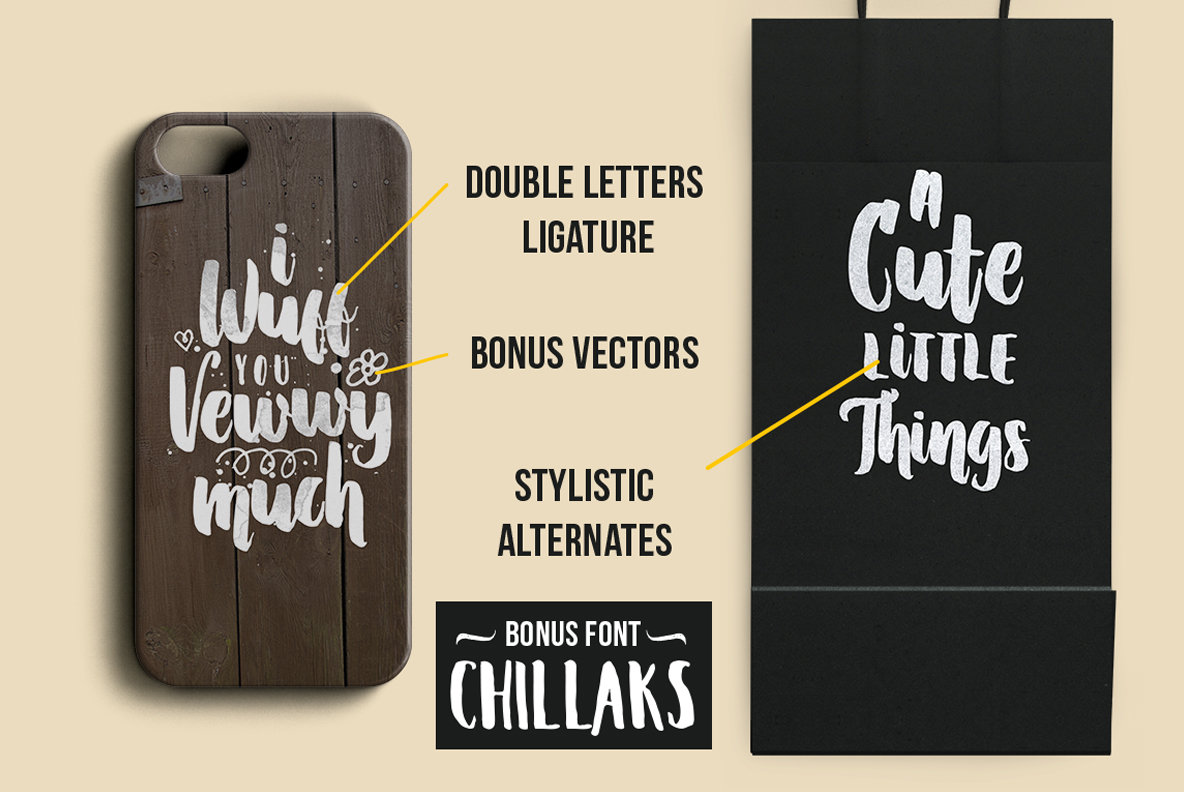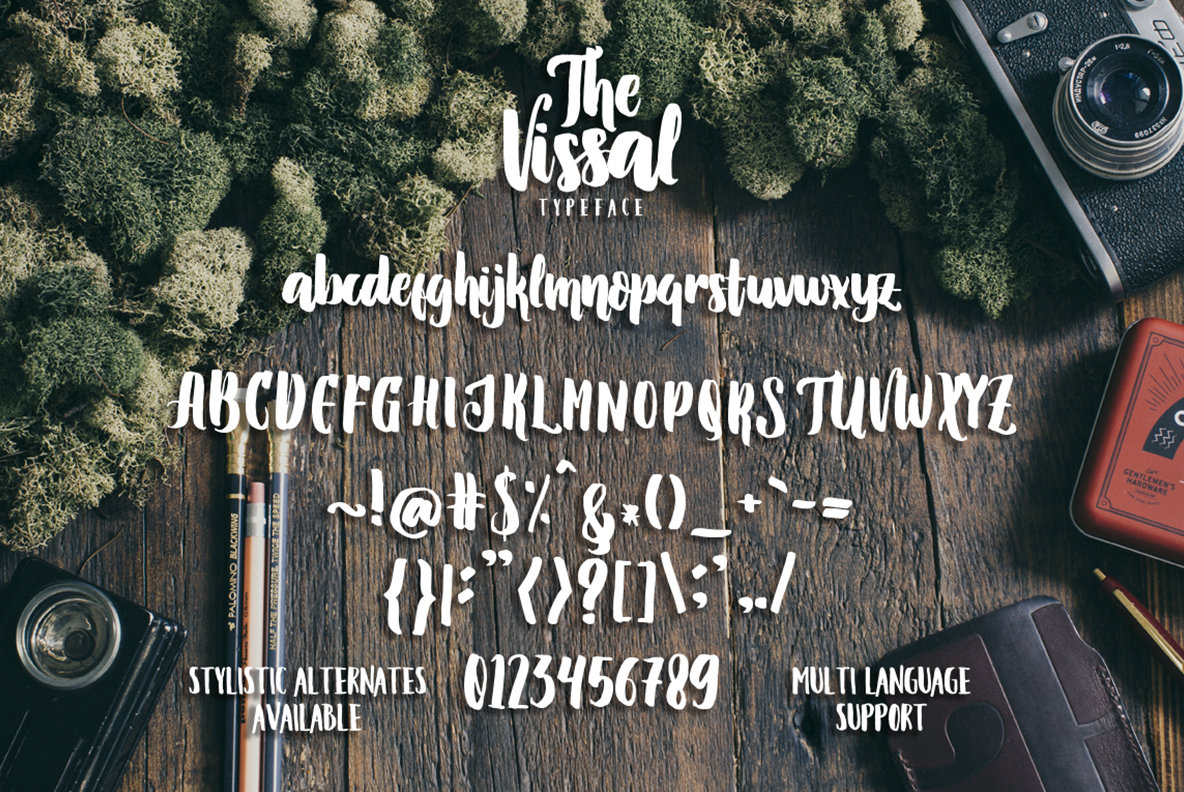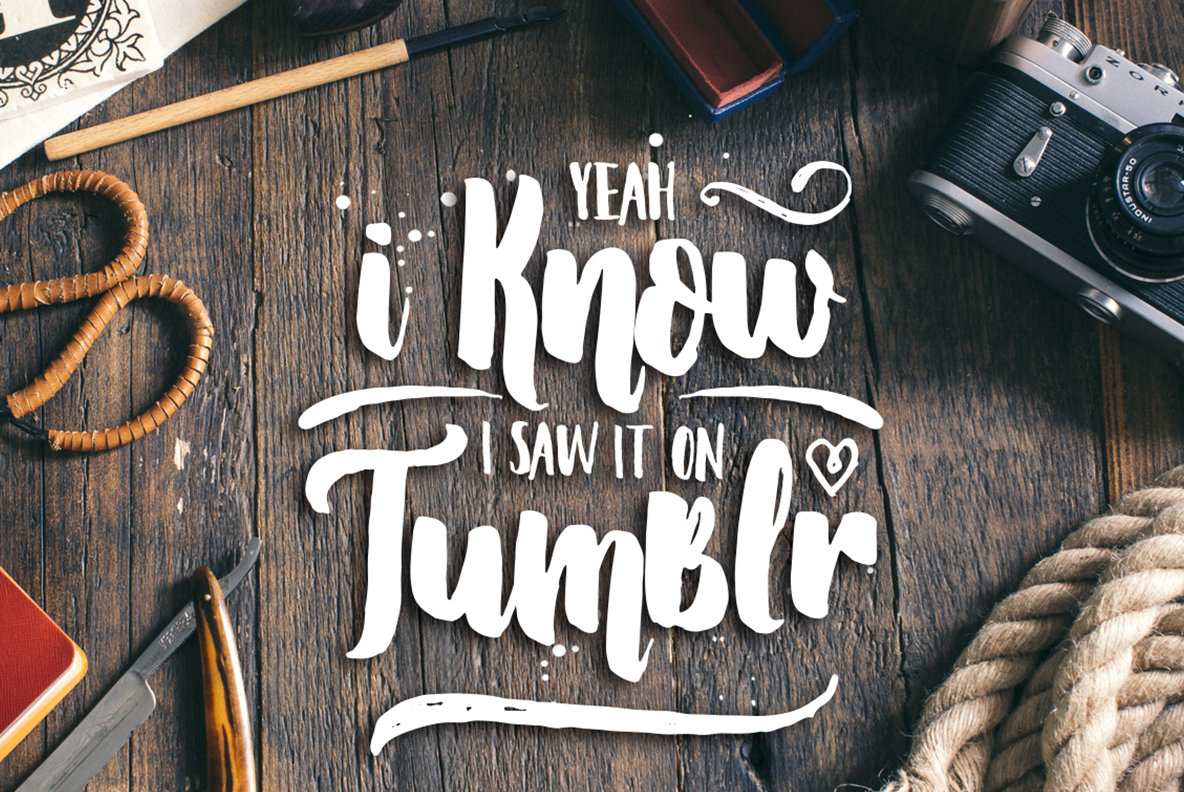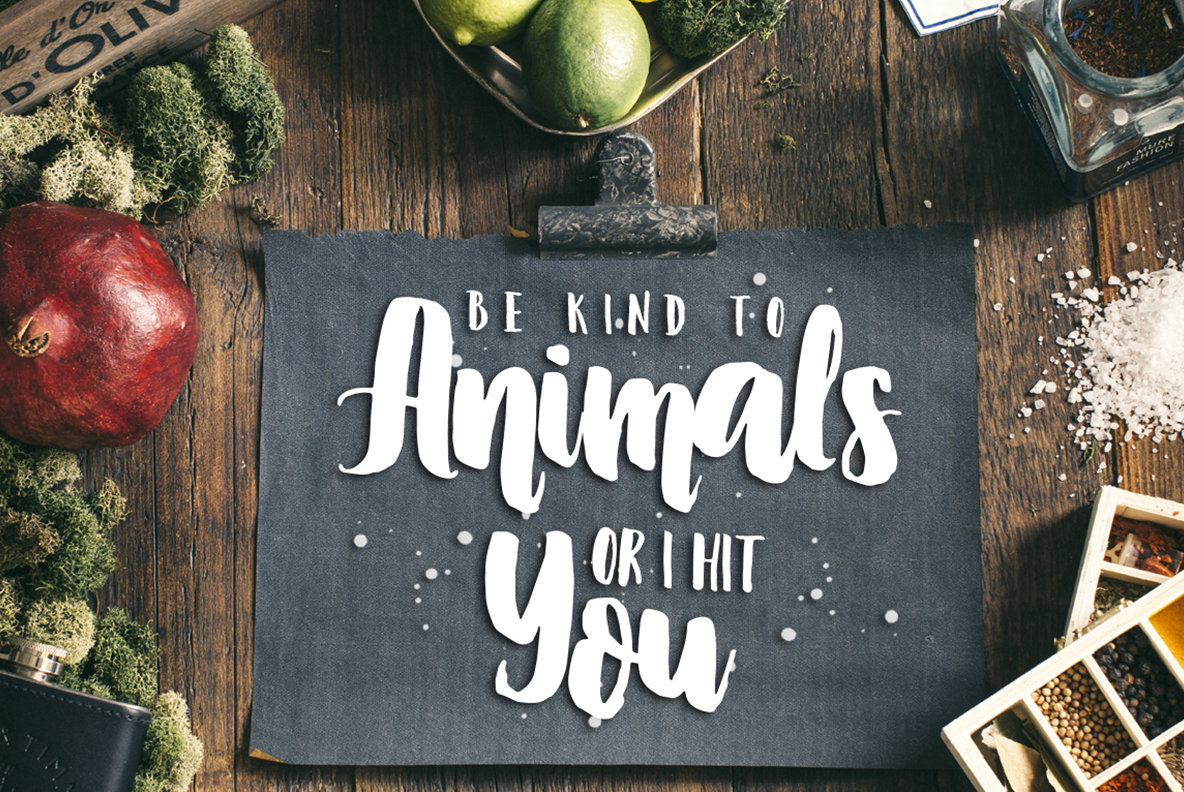
Vissal Font
Vissal is a blobby, brushy calligraphic style typeface design. The design contains 298 glyphs with Opentype Standard encoding, Multi-Language support, Stylistic Alternates, along with special ligature options.